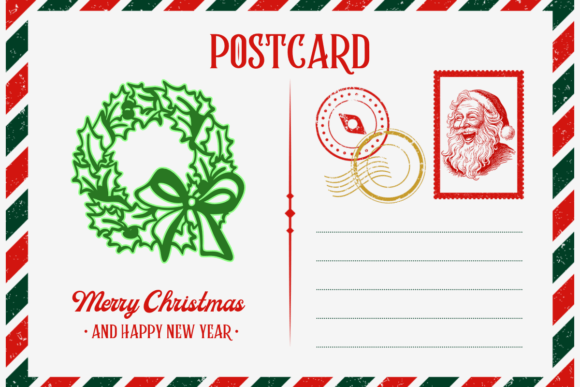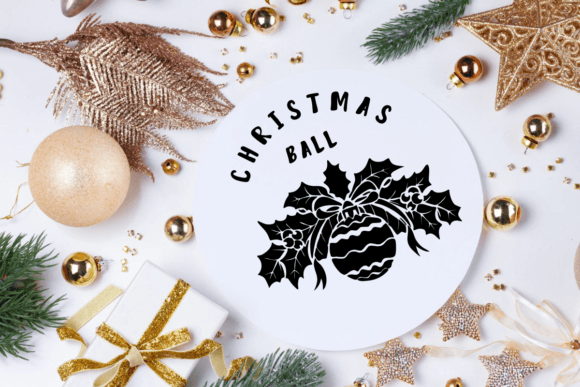
Christmas Decoration Font
Christmas Decoration is a dingbat font with all the elements that bring joy in the winter holidays. Add it to your projects and feel the Christmas cheer.